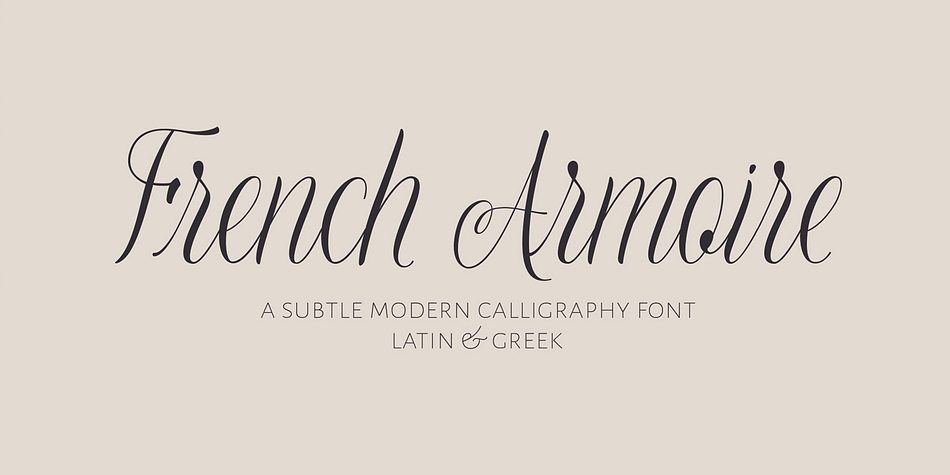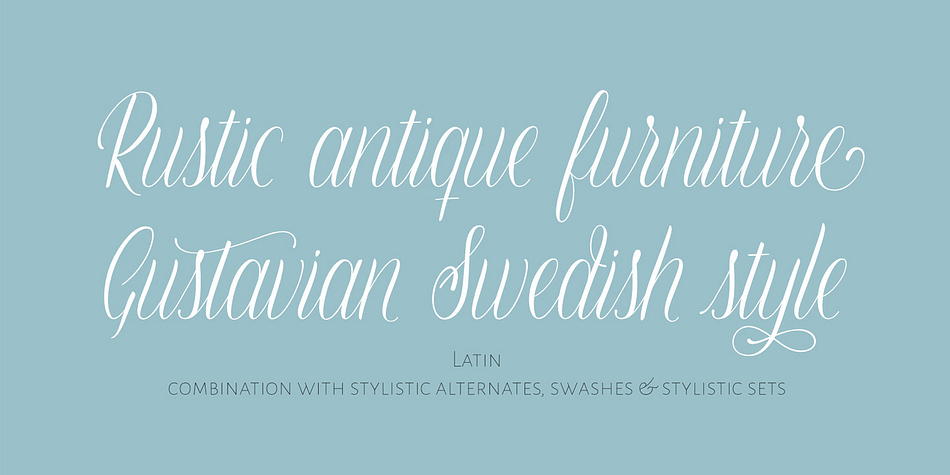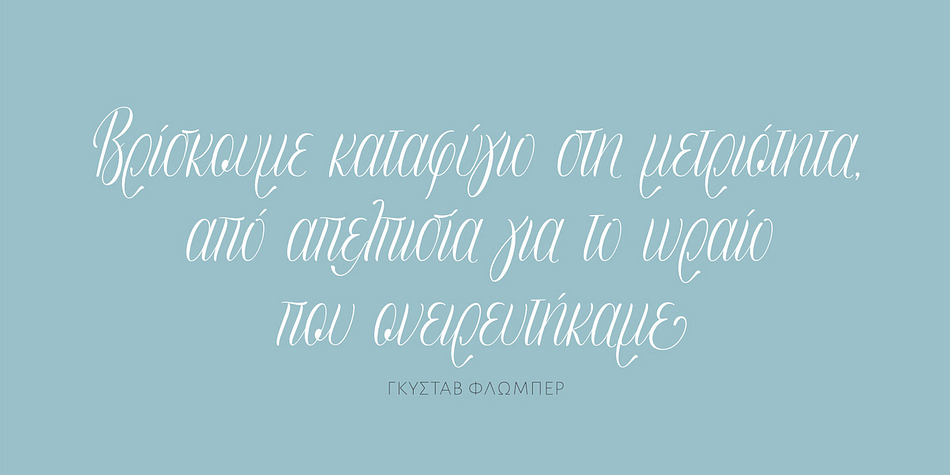
French Armoire
Designed by Anastasia Dimitriadi, French Armoire is a script font published by DimitriAna.
French Armoire is a subtle, modern calligraphy font that will give a casual chic look to your designs. It supports Central, Eastern, Western European, Baltic, Turkish and Greek languages and it is delivered in Opentype and Truetype format.
French Armoire has over a 1000 glyphs, with a variety of opentype features in Latin and Greek alphabet: Stylistic alternates, contextual (positional) alternates, swashes, 2 stylistic sets of initial and terminal forms and standard ligatures. The font is fully unicode-mapped (PUA encoded).